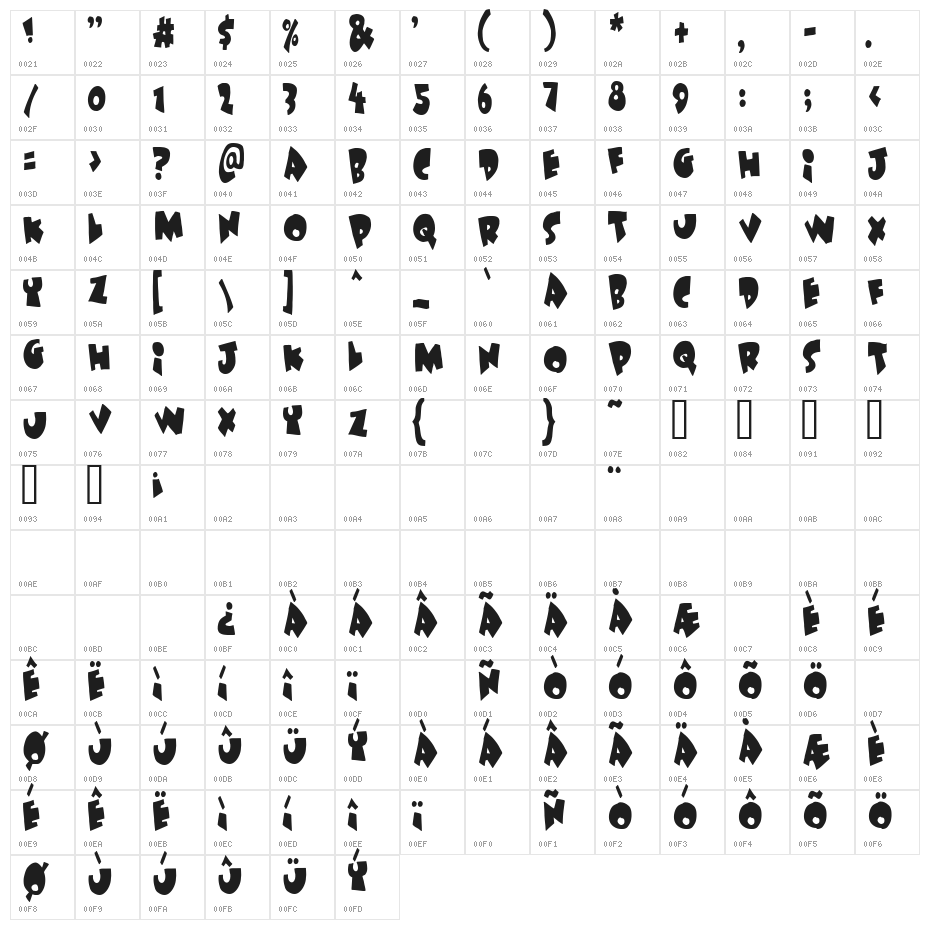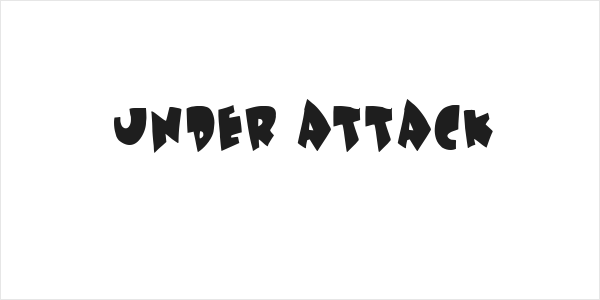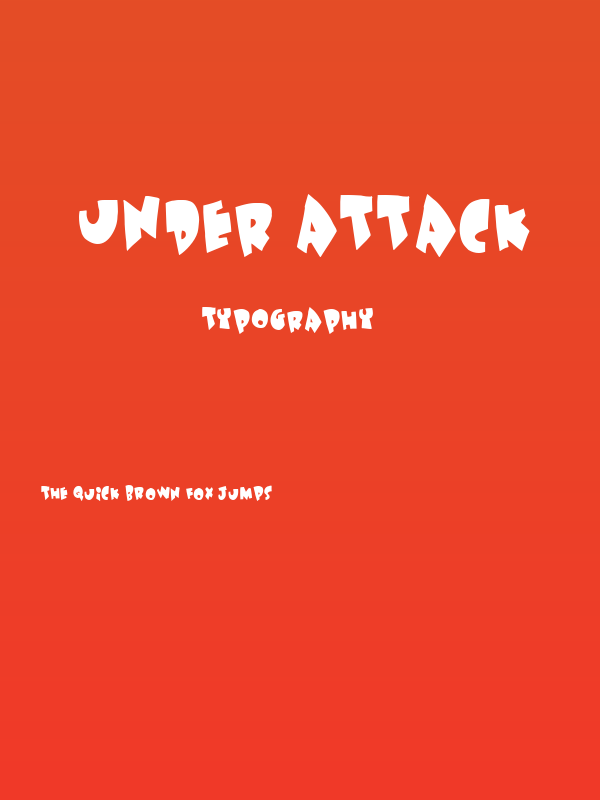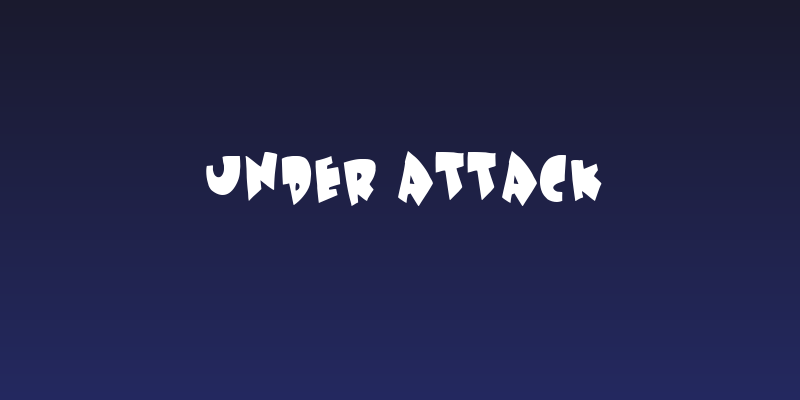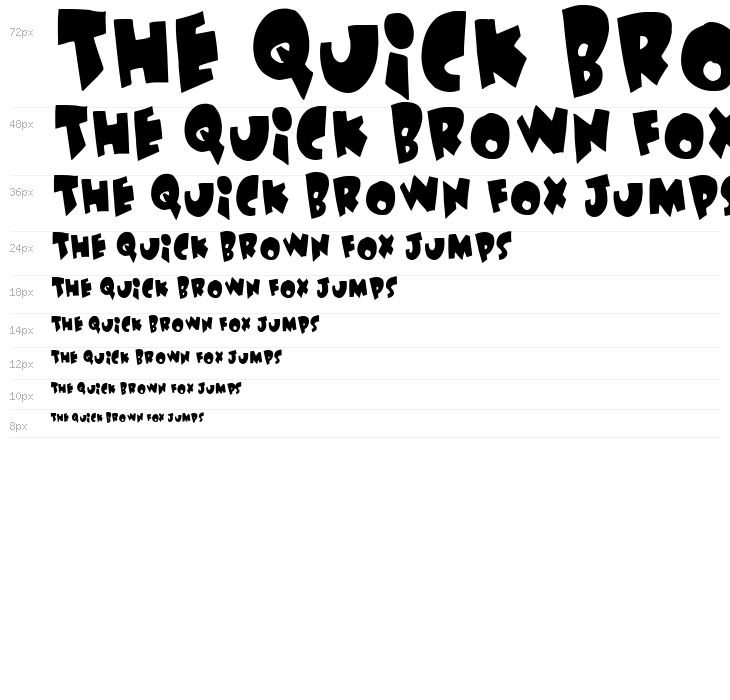
Under attack Font
Under attack Description
This font features a bold, playful design with exaggerated, irregular shapes that give it a dynamic and energetic feel. The characters are heavily stylized, with sharp angles and varying stroke widths that create a sense of movement and excitement. The uppercase and lowercase letters maintain a consistent style, while the numbers and special characters are equally bold and expressive. This font is ideal for projects that require a fun, eye-catching aesthetic, making it perfect for children's books, comic strips, or playful branding.
| Overall Style | Playful, Energetic, Dynamic |
| Proposed Projects | Ideal for children's books, comic strips, playful branding, and eye-catching posters. |